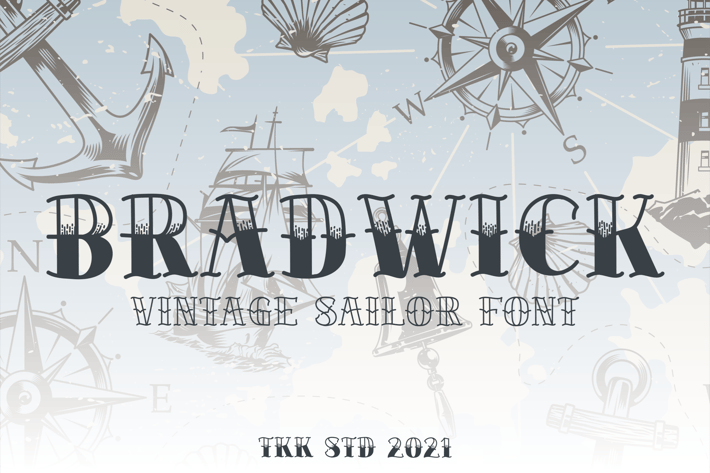
Tattoo Font - Bradwick
BRADWICK
BRADWICK is a vintage sailor tattoo typeface inspired by 1920s maritime posters, classic naval lettering, and old-school tattoo flash. Its high-contrast strokes, tight serifs, and condensed proportions give it a bold, rugged, and timeworn character that speaks of sea legends, sailor bars, and adventurous ports. With a classic serif base and handcrafted imperfections, it’s both expressive and commanding—perfect for nostalgic branding and storytelling visuals.
Its visual personality fits right into tattoo parlors, antique shops, barber branding, fishing merchandise, or pirate-themed apparel. The font’s structured weight, symmetrical balance, and uppercase strength make it a versatile asset for storytelling-rich designs.
Need a typeface that evokes salty air, rugged sailors, or vintage tattoos? BRADWICK nails the aesthetic. Use it on bar signs, whiskey labels, fishing club posters, pirate book titles, or nautical wedding invites. This typeface connects deeply with buyers seeking character-rich lettering that adds emotional weight and nostalgic storytelling to their projects. It’s more than decorative—it’s a voyage.
Authentic Nautical Style
- Handcrafted vintage style inspired by sailor tattoos & old naval posters
- Bold uppercase forms with sharp serifs and balanced contrast
- High legibility and visual dominance in both digital and print media
Versatile Use Cases
- Perfect for logo design, tattoo flash sheets, signage, packaging, and bar branding
- Enhances retro themes with rich character and sea-inspired narrative
- Adds personality and edge to every design touchpoint